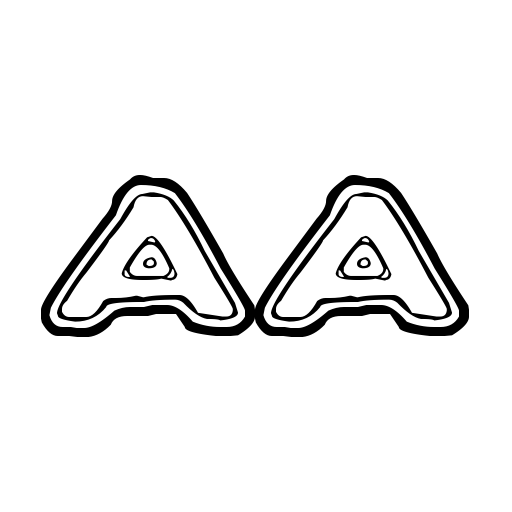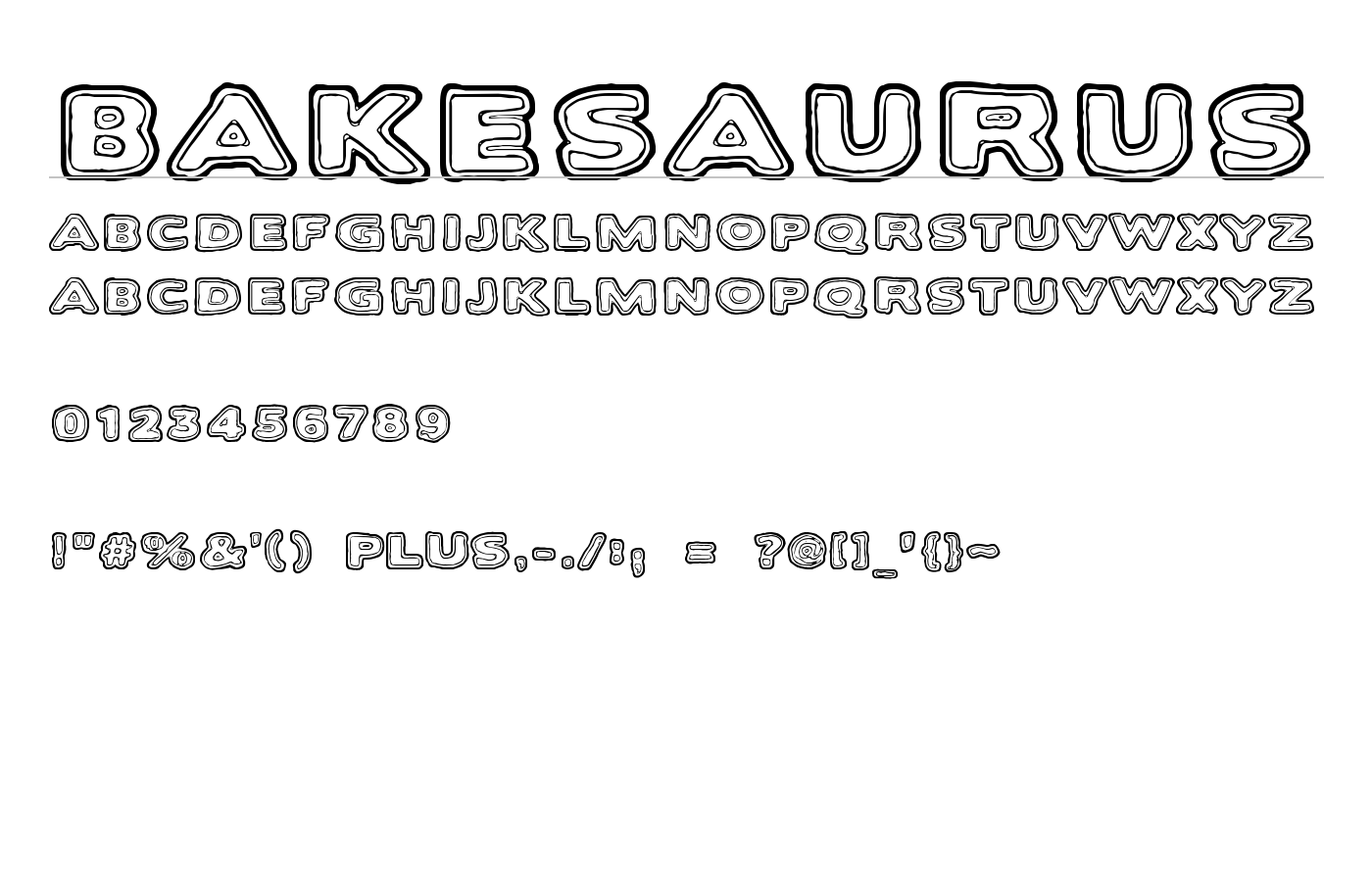
Bakesaurus is a playful and bold sans serif display font with a chunky, rounded appearance that gives it a fun, hand-drawn feel. Its thick, slightly irregular outlines and large x-height make it perfect for attention-grabbing headlines, logos, and packaging aimed at a youthful or whimsical audience. This font works best where a friendly and informal vibe is desired, adding charm and personality to creative projects.
Bakesaurus Font